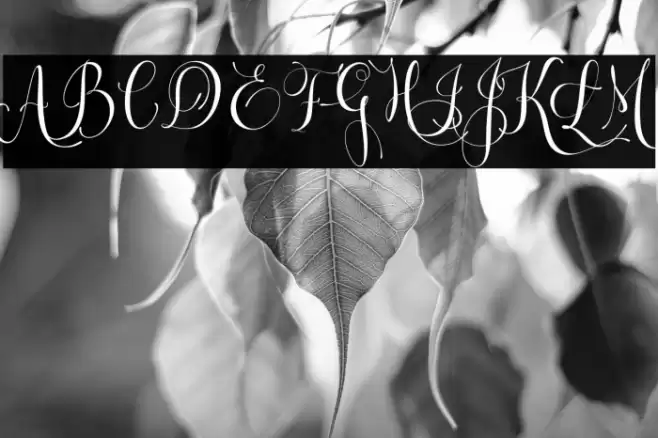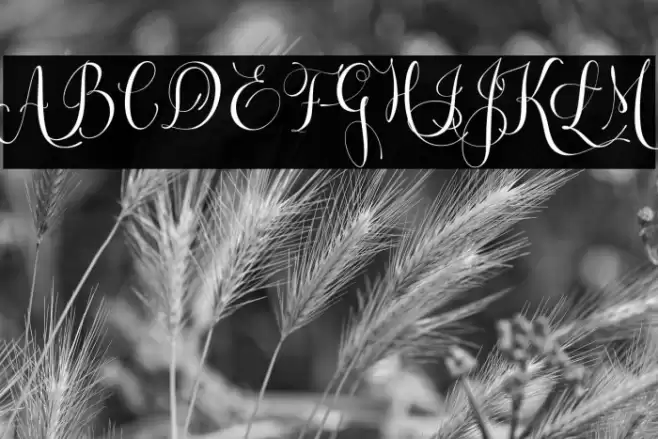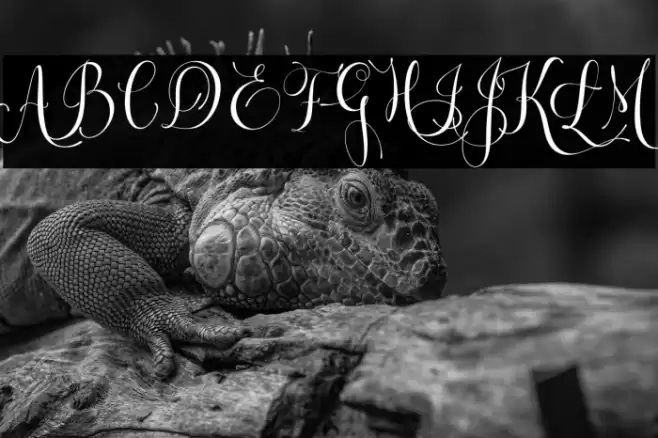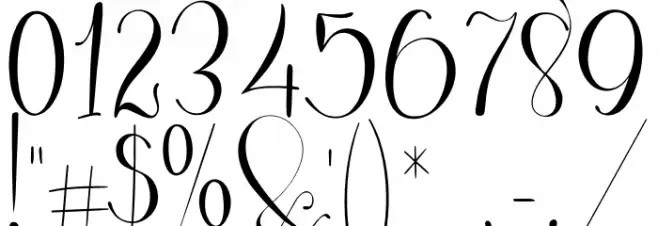
Letsgetcrazy Font
Letsgetcrazy Description
This font exhibits a highly decorative and elegant script style, characterized by its flowing, cursive letterforms and intricate swashes. The uppercase letters are particularly ornate, with extended loops and flourishes that give the font a sense of movement and grace. The lowercase letters maintain a consistent style, with smooth curves and a slightly exaggerated slant that enhances the overall fluidity. The numerals are distinct yet harmonize well with the alphabet, featuring a similar level of embellishment. Special characters are thoughtfully designed, incorporating the same artistic flair. This font's high contrast in stroke thickness adds to its dramatic appearance, making it ideal for creating visually striking text.
A decorative script font with elegant swashes and high contrast strokes from Uncategorized fonts.
- Font: Letsgetcrazy
- Proposed Projects: Ideal for wedding invitations, luxury branding, greeting cards, and artistic posters.
- Use Case: Logos, Headlines, Invitations